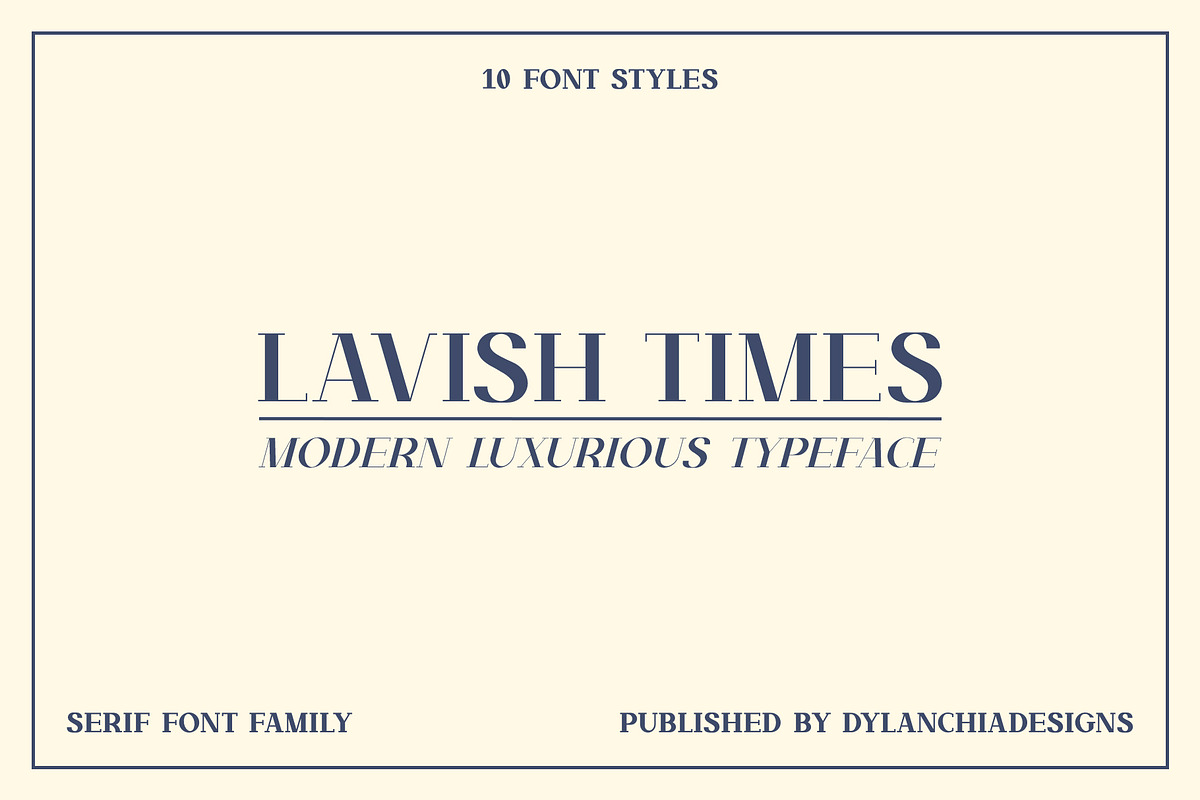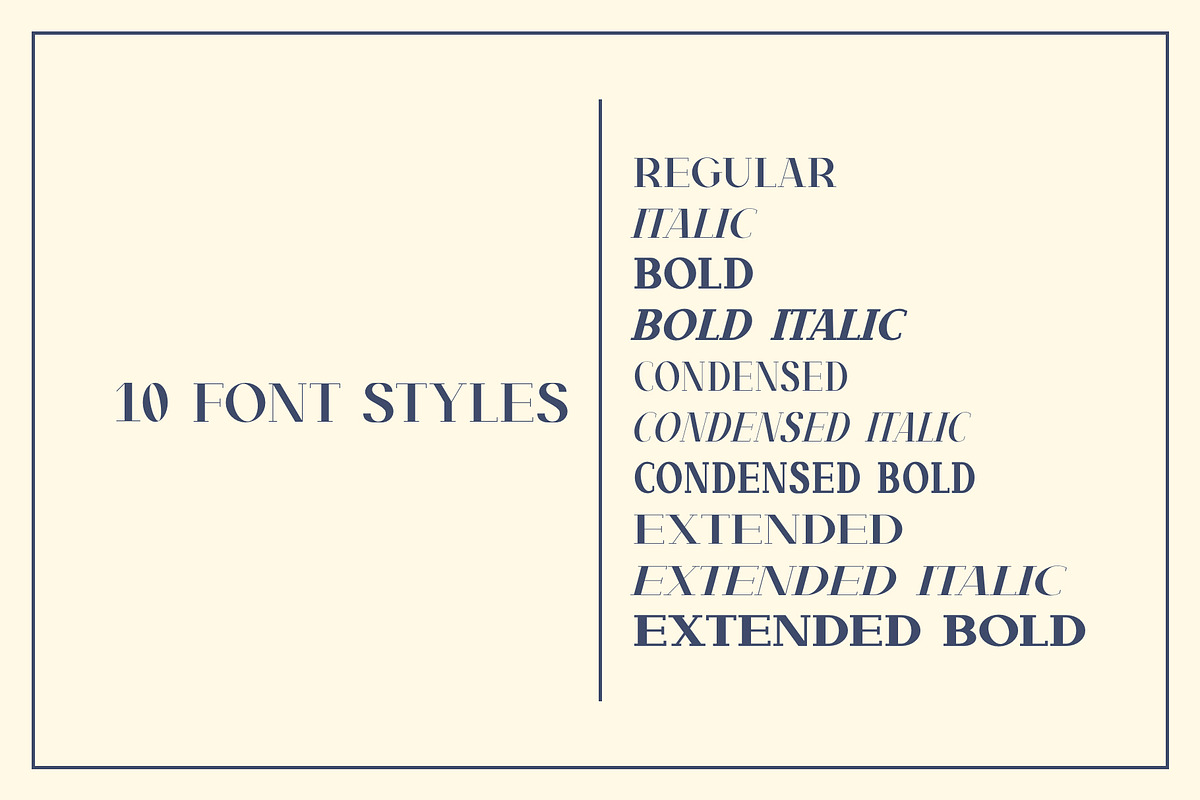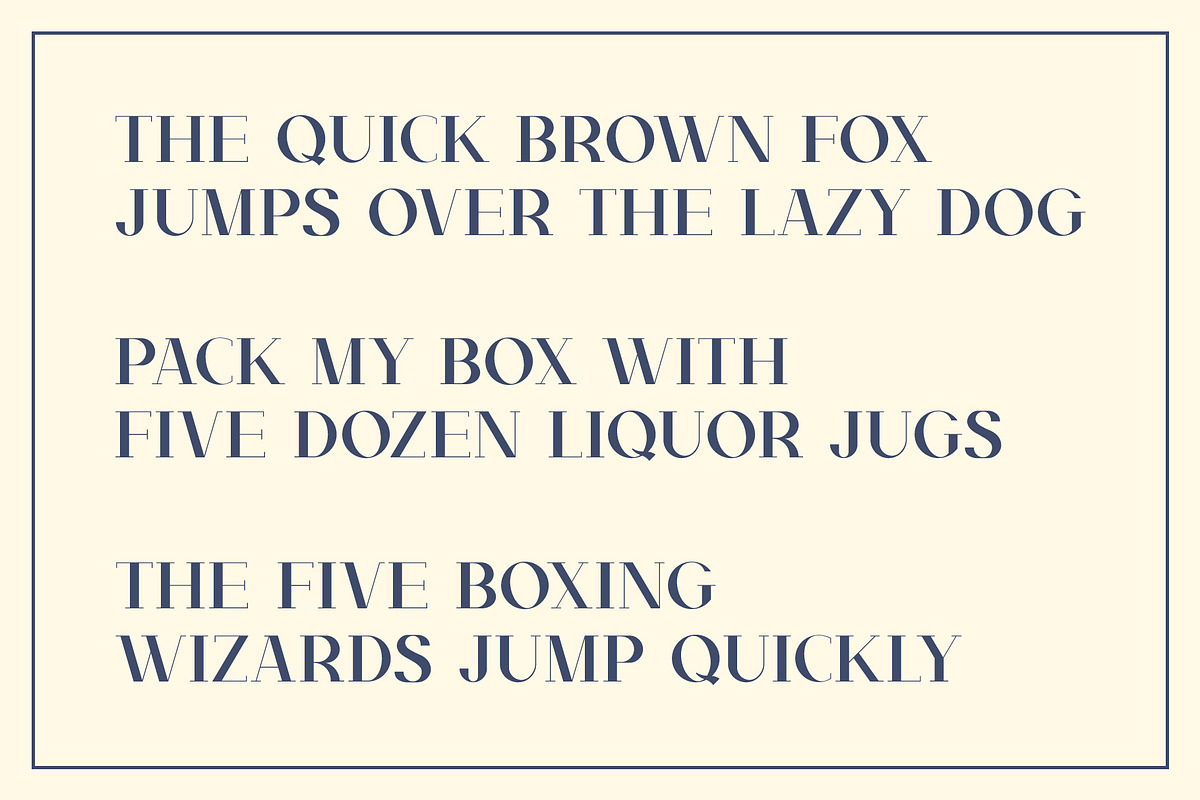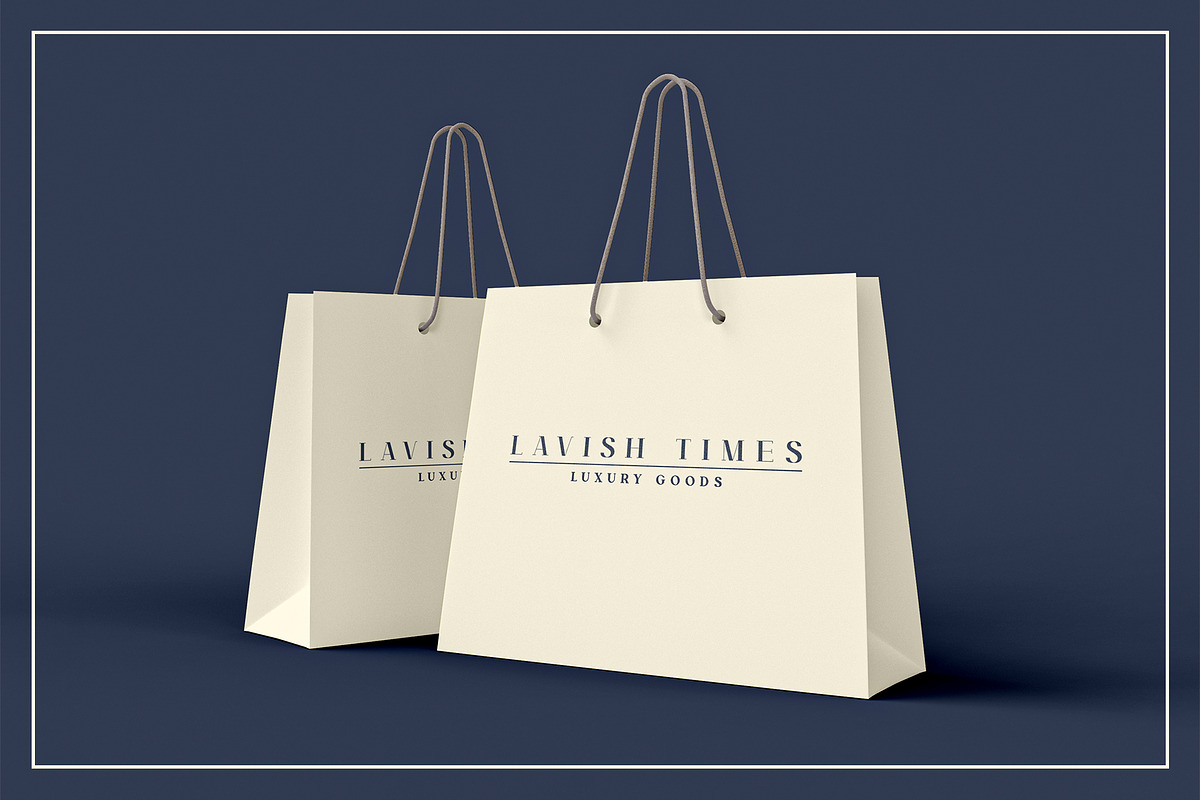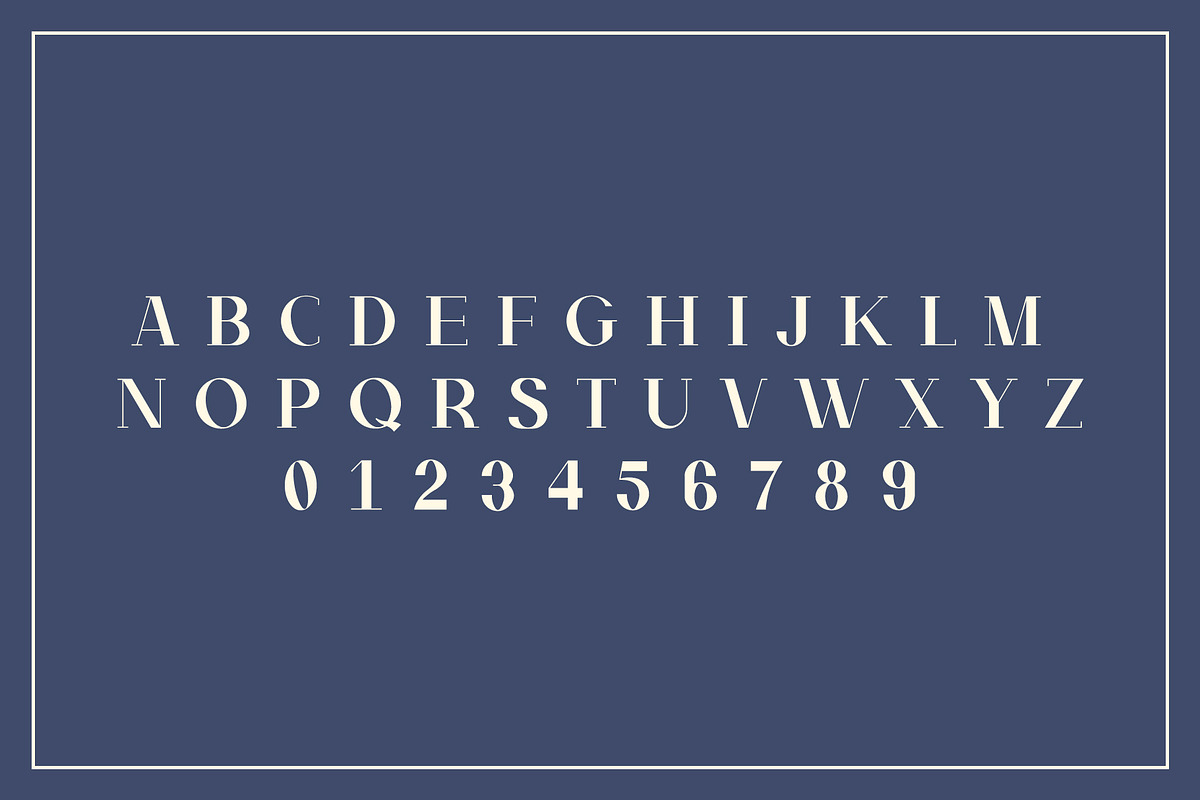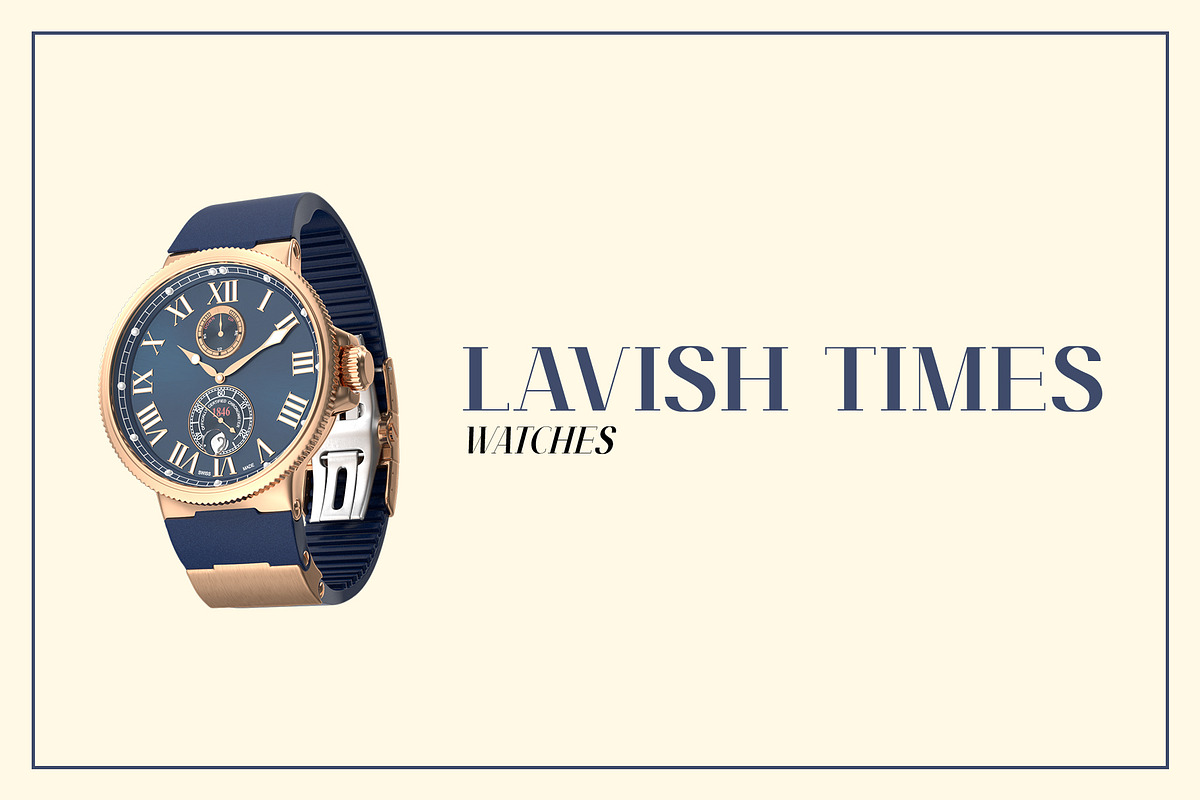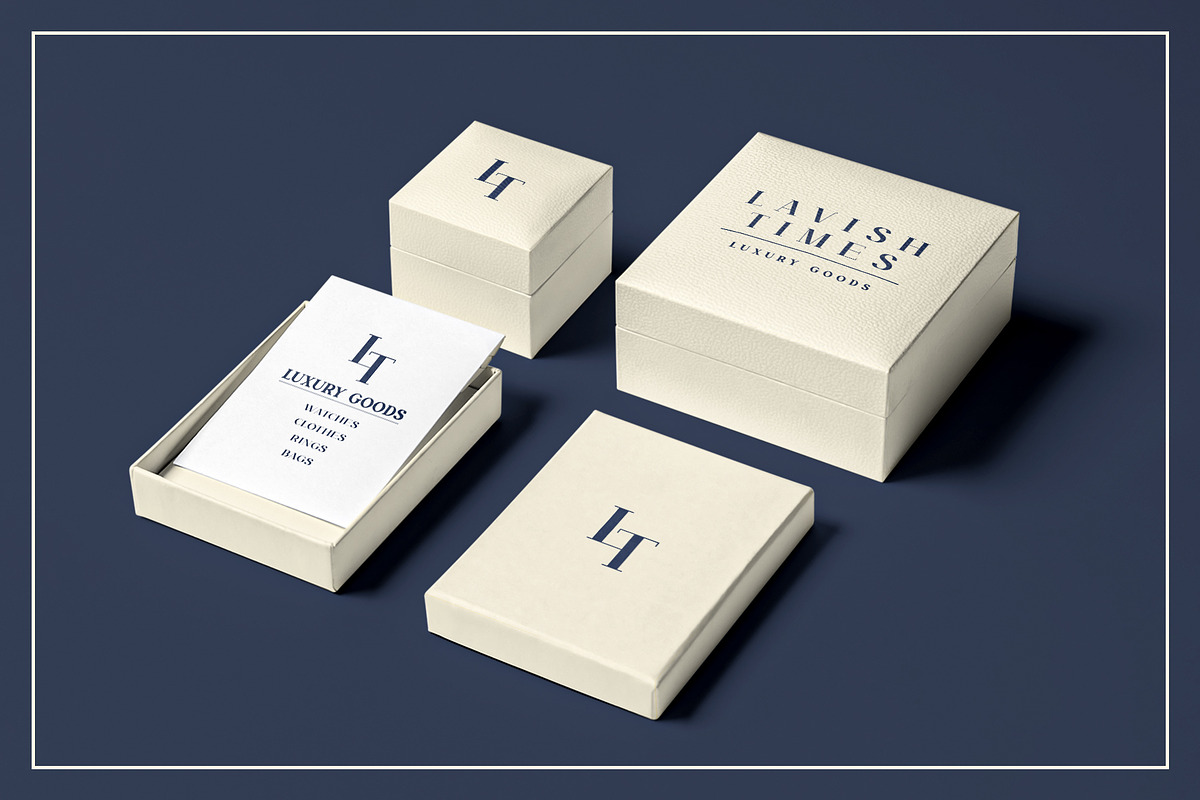
Lavish Times - Serif Font Family
Introducing Lavish Times; a modern luxurious hairline serif typeface, suitable for projects conveying classiness, superiority and modernity. Available in this product are 10 different font styles in Opentype Format (.otf)
10 FONT STYLES
- Italic
- Bold
- Bold Italic
- Condensed
- Condensed Italic
- Condensed Bold
- Extended
- Extended Italic
- Extended Bold